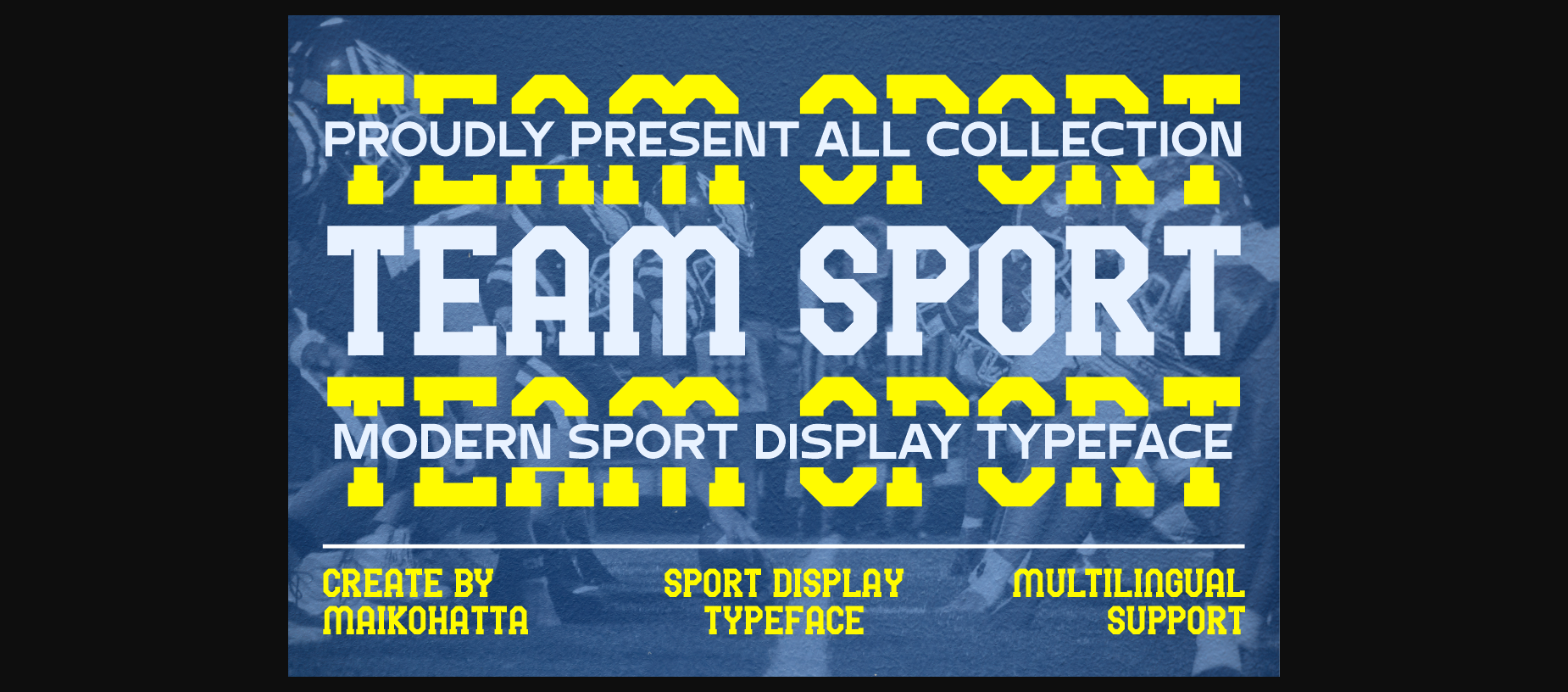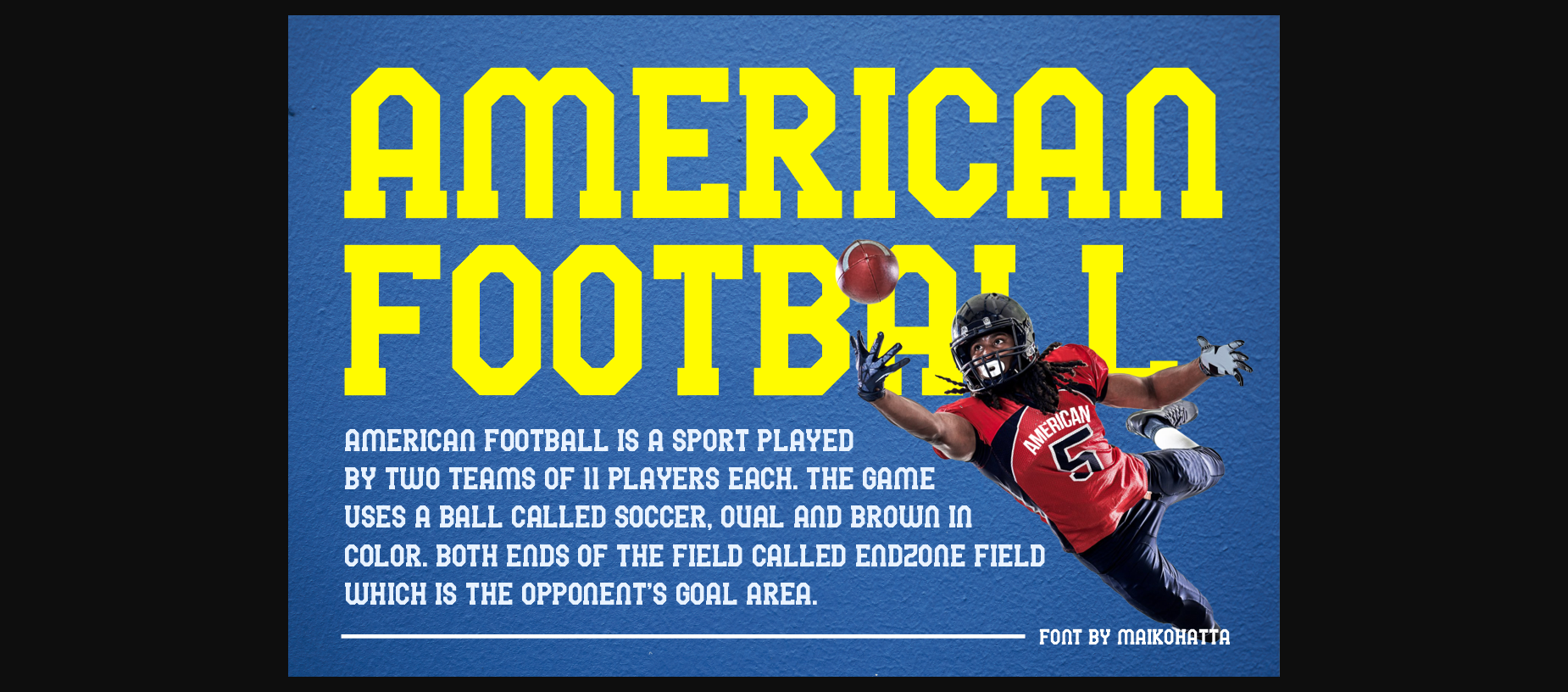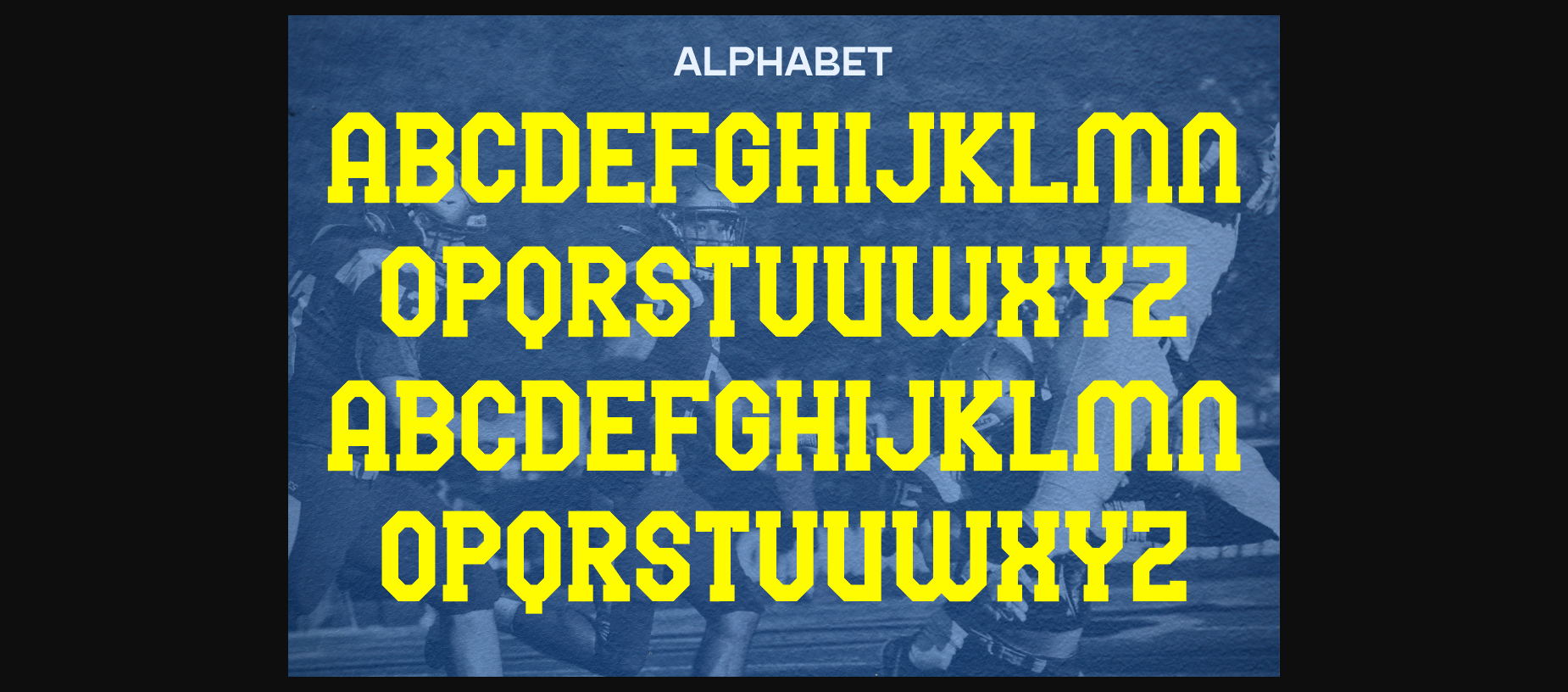
About Team Sport Font
This font was designed to reflect the dynamic spirit, energy and toughness often associated with physical activity and sports. Team Sport can be used in brand identities of sports teams, sports companies, and major sporting events. This font design can contribute to creating a strong visual appeal, as well as building an emotional connection with the audience associated with a spirit of competition and achievement.